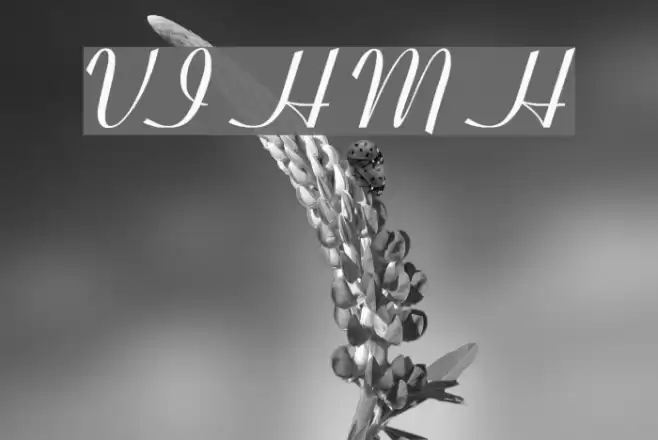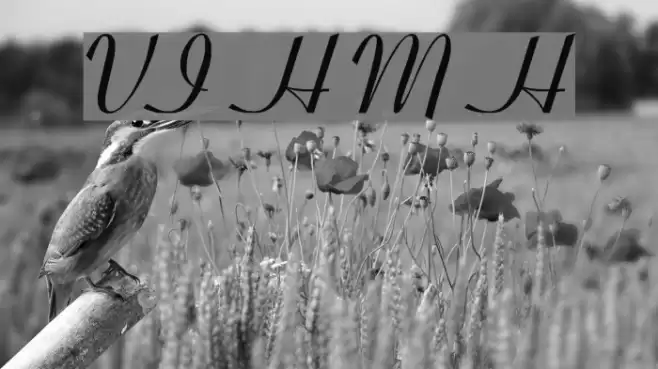
VI Hoang Mai Hoa Font
VI Hoang Mai Hoa Description
This elegant script font features fluid, cursive strokes that convey a sense of sophistication and grace. Each letter is intricately designed with smooth curves and delicate flourishes, creating a harmonious flow across the text. The uppercase letters are particularly ornate, with sweeping lines that extend beyond the baseline, adding a touch of drama. The lowercase letters maintain a consistent style, complementing the uppercase with their own subtle embellishments. Numbers and special characters are crafted with the same attention to detail, ensuring a cohesive appearance throughout. This font is ideal for projects that require a touch of elegance and refinement.
An elegant script font with fluid, cursive strokes and intricate flourishes from Uncategorized fonts.
- Proposed Projects: Wedding invitations, luxury branding, elegant stationery, and high-end product packaging.
- Overall Style: Elegant
- Use Case: Logos, Invitations, Decorative text